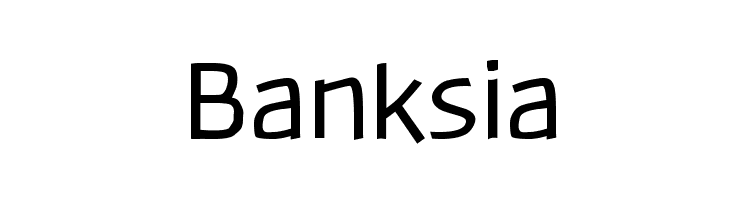
( Andrew Paglinawan - www.andrewpaglinawan.com )
A sleek, modern, and slightly oblique font with a light, airy feel.
( Edward Leach )
A casual, handwritten font with fluid, slightly irregular strokes.
( Fontomen - www.algonet.se/~j-j/ )
A playful and quirky font with bold, slightly condensed uppercase letters and whimsical lowercase letters.
( Fontor )
A modern, clean font with a geometric and slightly curved design.
( Frank Hemmekam - www.frankthetank.info/ )
A rounded, smooth, and slightly italicized typeface with a modern and friendly appearance.
( GroovyJournal - www.groovyjournal.com )
A playful, bold font with rounded, slightly irregular characters.
( Judex - www.lehrerweb.at/index.php?page=schulschriften )
A modern sans-serif font with clean lines and a slightly condensed form.
( Konstantine Studio - www.behance.net/konstantinestudio )
A bold, modern font with strong, thick strokes and a slightly condensed style.
( Lollibomb - www.lollibomb.com/ )
A dynamic and elegant italic font with smooth, slightly slanted letterforms.